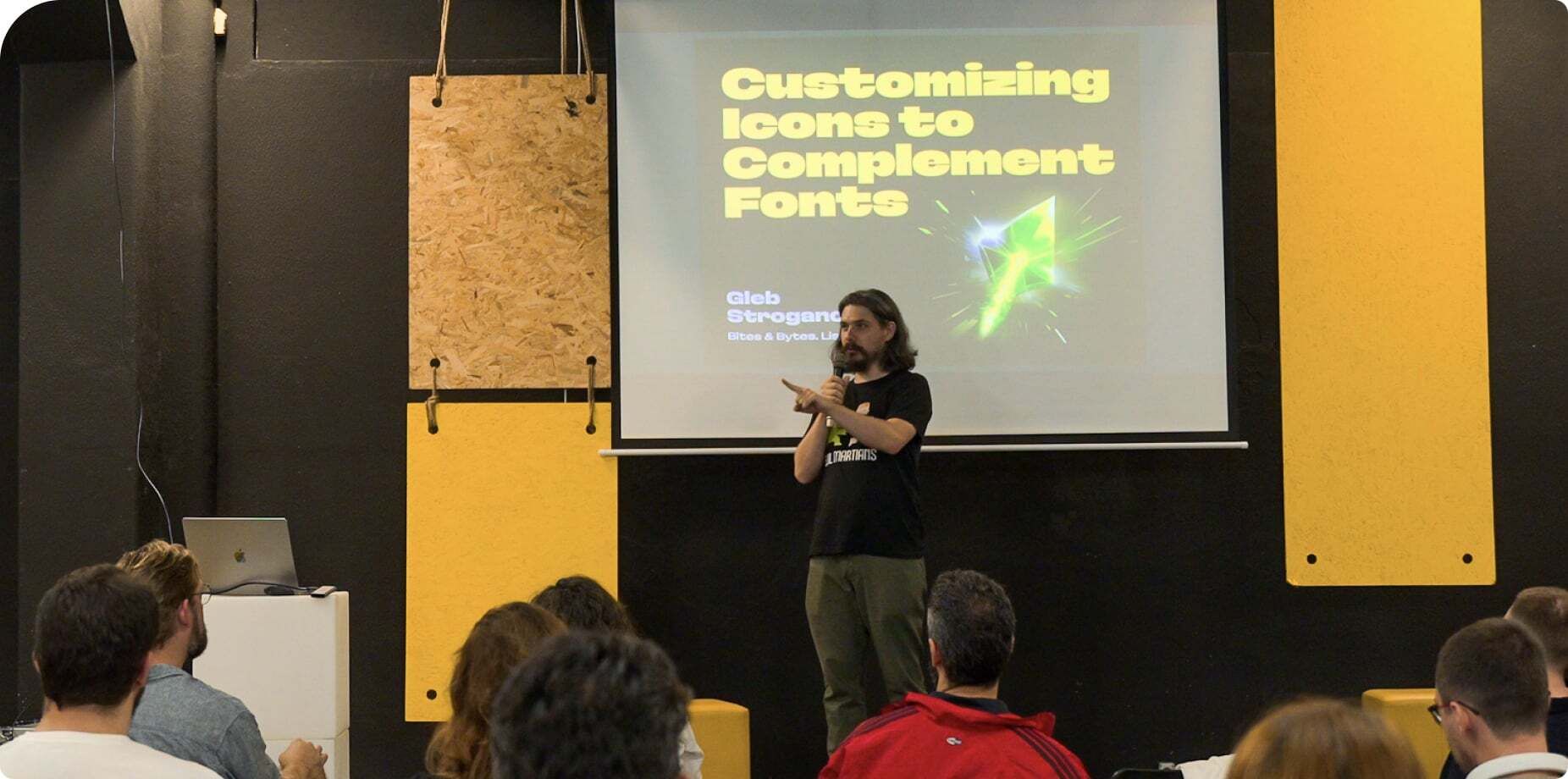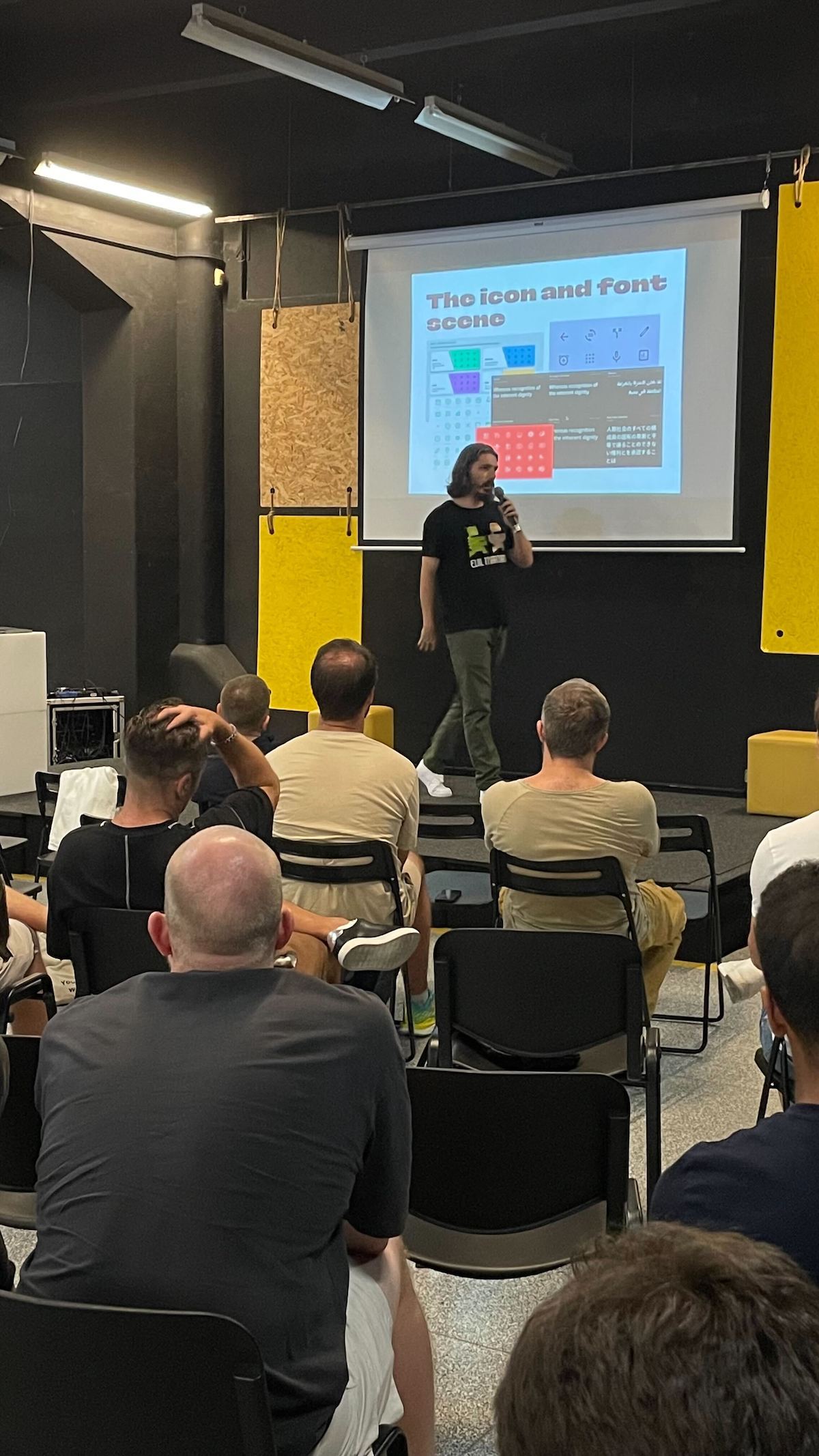
Even neutral-looking fonts have near imperceptible characteristics that determine their look and feel. In this talk, I’ll demonstrate how to identify these font characteristics and apply them to your icons with the goal of making them complement a UI’s font. We’ll look at detailed examples, show how to sharpen your eye for doing this type of work, and discuss possible pitfalls.